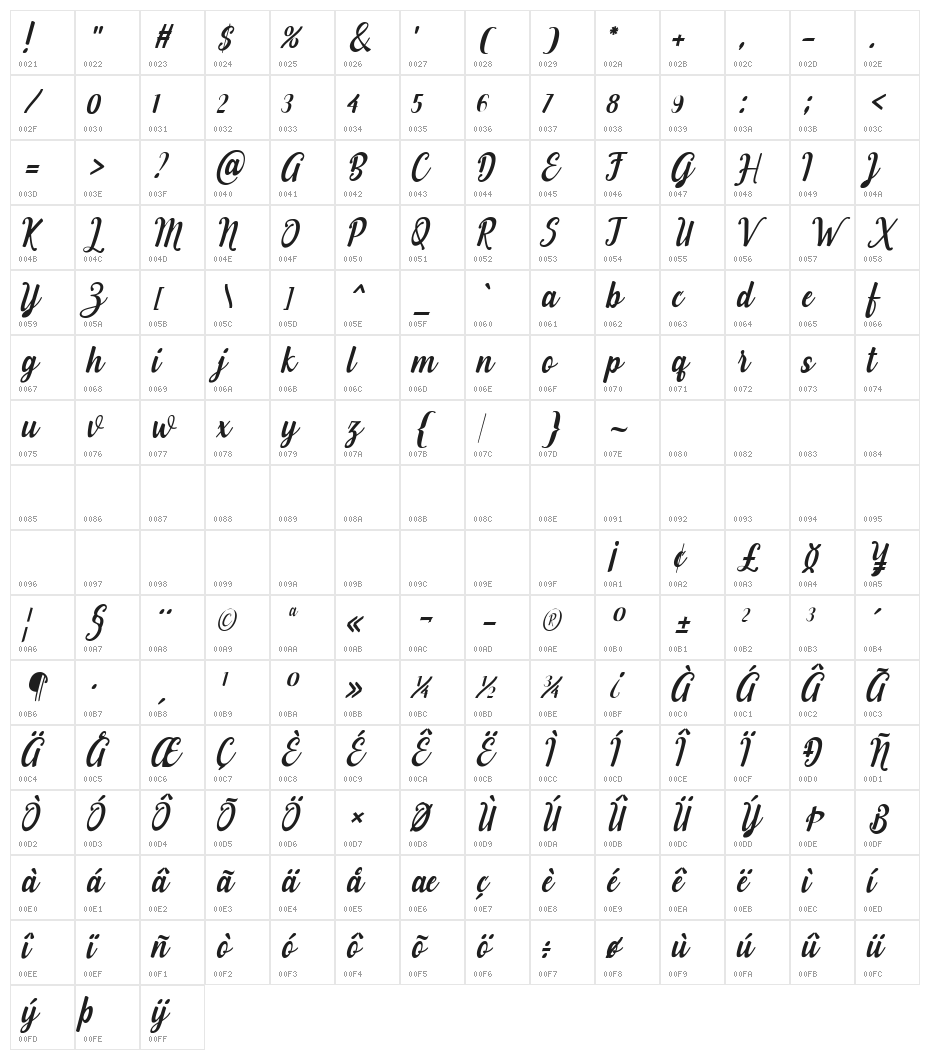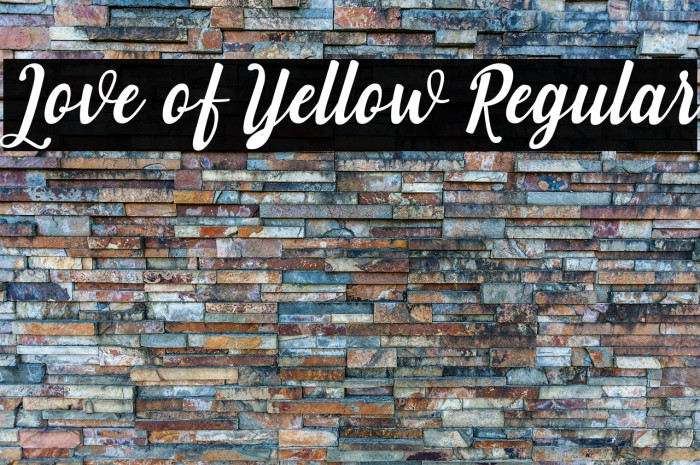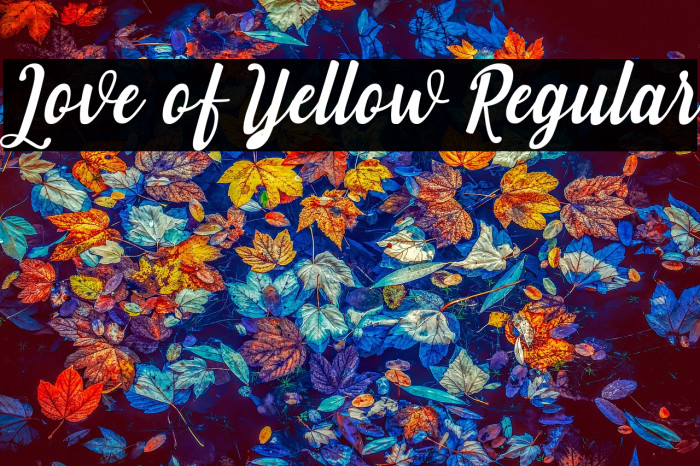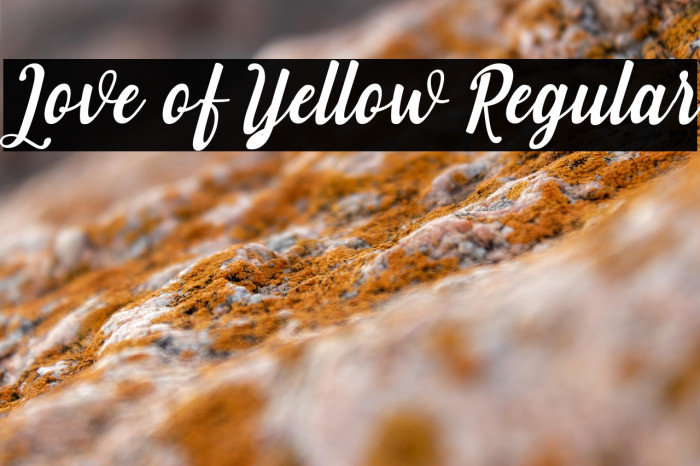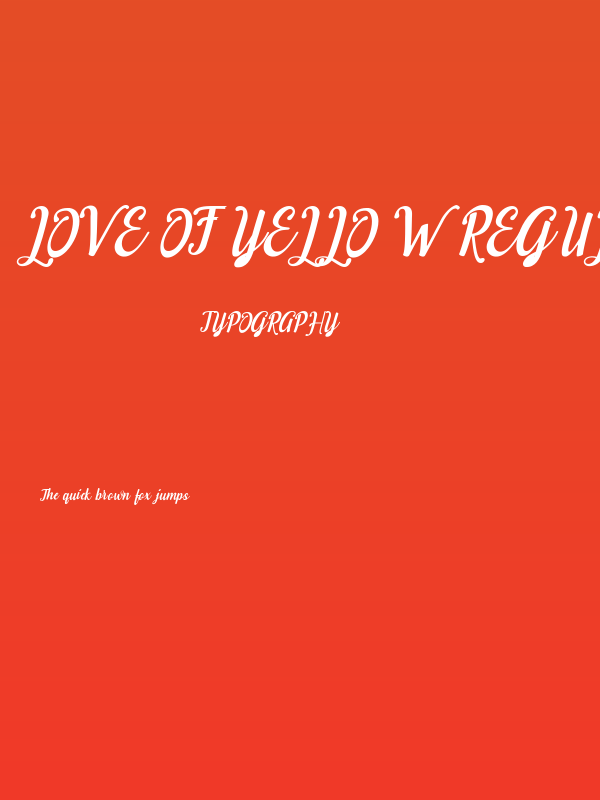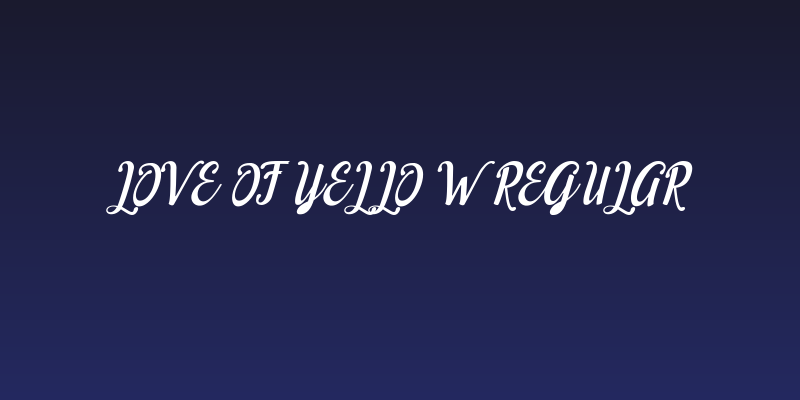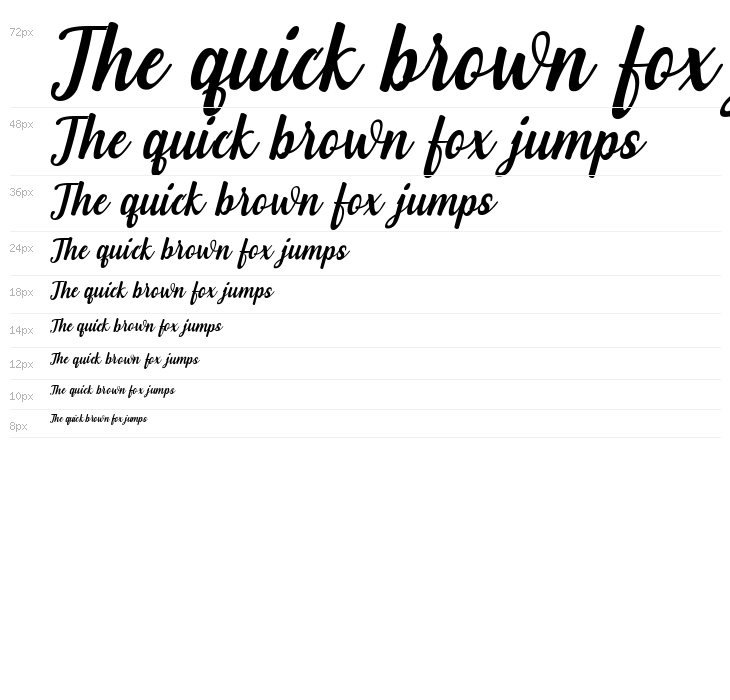
Love of Yellow Regular Font
Love of Yellow Regular Description
This font exudes a lively and dynamic energy with its flowing, cursive style. The characters are elegantly connected, giving it a handwritten appearance that is both sophisticated and approachable. The uppercase letters are bold and prominent, while the lowercase letters maintain a consistent flow, enhancing readability. Numbers and special characters are crafted with the same attention to detail, ensuring a cohesive look across all text. The font's overall aesthetic is perfect for projects that require a personal touch, such as invitations, greeting cards, or branding materials. Its versatility allows it to be used in both formal and informal contexts, making it a valuable addition to any designer's toolkit.